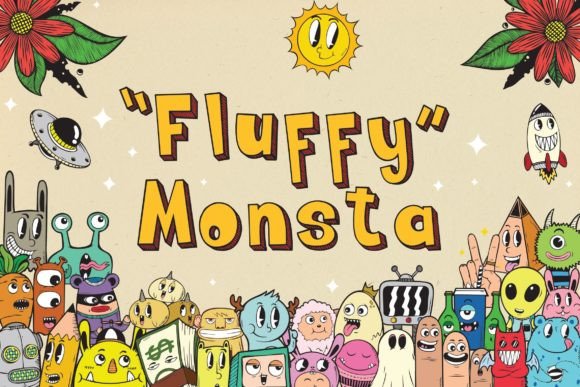
In a world where individuality reigns supreme, let your designs dance to the beat of their own drum with Fluffy Monsta, the font that's as unique and captivating as you are. This extraordinary display font, brought to life by the creative minds at Graphiqa, is your gateway to a world of endless possibilities, where creativity knows no bounds.
Crafted with meticulous attention to detail, each character in Fluffy Monsta is a stroke of genius, a testament to the boundless imagination of its creator. Its playful curves and cheerful demeanor bring a touch of whimsy and charm to any project, making it the perfect choice for those seeking to make a statement, to stand out from the crowd.
With Fluffy Monsta, the ordinary becomes extraordinary, the mundane transforms into the magical. Its playful spirit lends itself effortlessly to logos, t-shirt designs, creative products, and any endeavor that craves a touch of geometric flair. Its versatility knows no limits, allowing you to weave your creative magic across a myriad of platforms.
Whether you're a seasoned designer seeking to expand your typographic horizons or a budding entrepreneur looking to establish a brand identity that resonates, Fluffy Monsta is your steadfast companion. Its ability to elevate your creations is undeniable, a testament to its exceptional quality and boundless potential.
In the realm of design, where competition is fierce and originality is paramount, Fluffy Monsta emerges as your secret weapon, a font that breathes life into your ideas, transforming them into captivating masterpieces. Its playful nature invites interaction, drawing the eyes and igniting imaginations, leaving an unforgettable impression on all who encounter it.
Step into the realm of Fluffy Monsta, where fonts take on a life of their own, where creativity flourishes, and where your designs reach new heights. Unleash the power of this extraordinary font, and watch as your projects blossom into works of art that captivate and inspire.